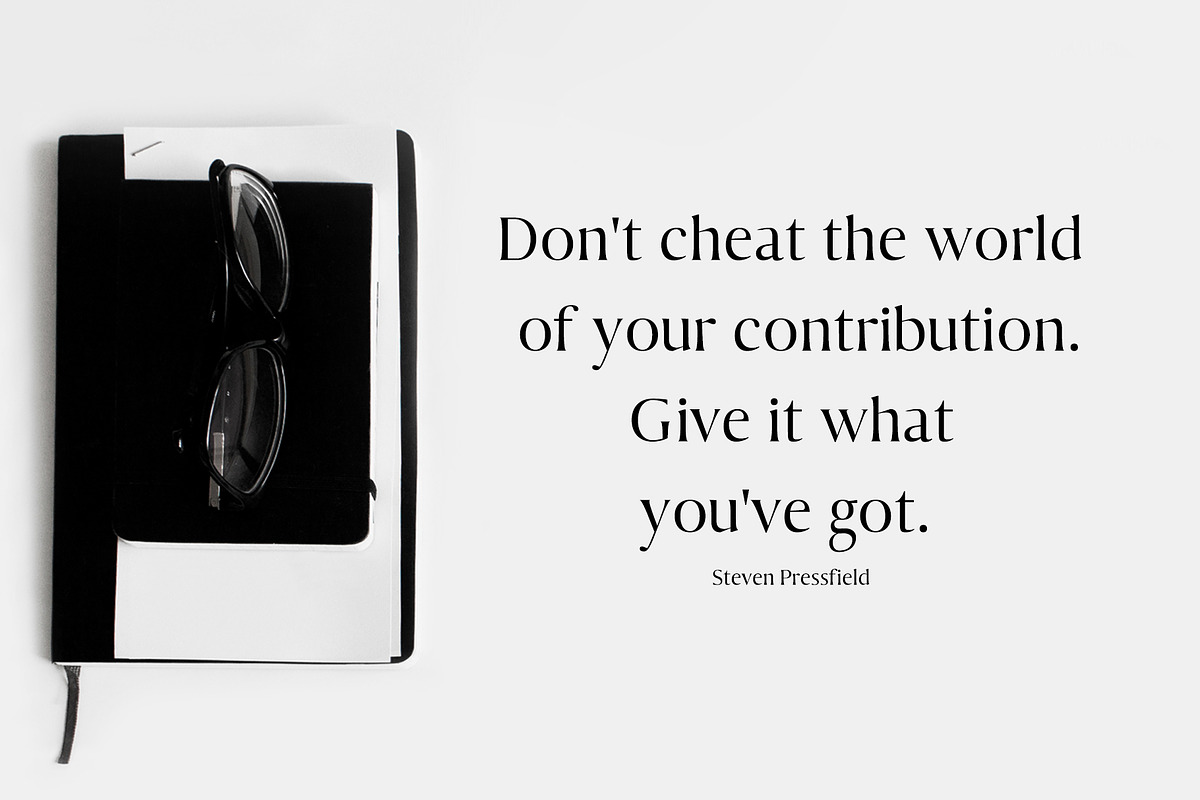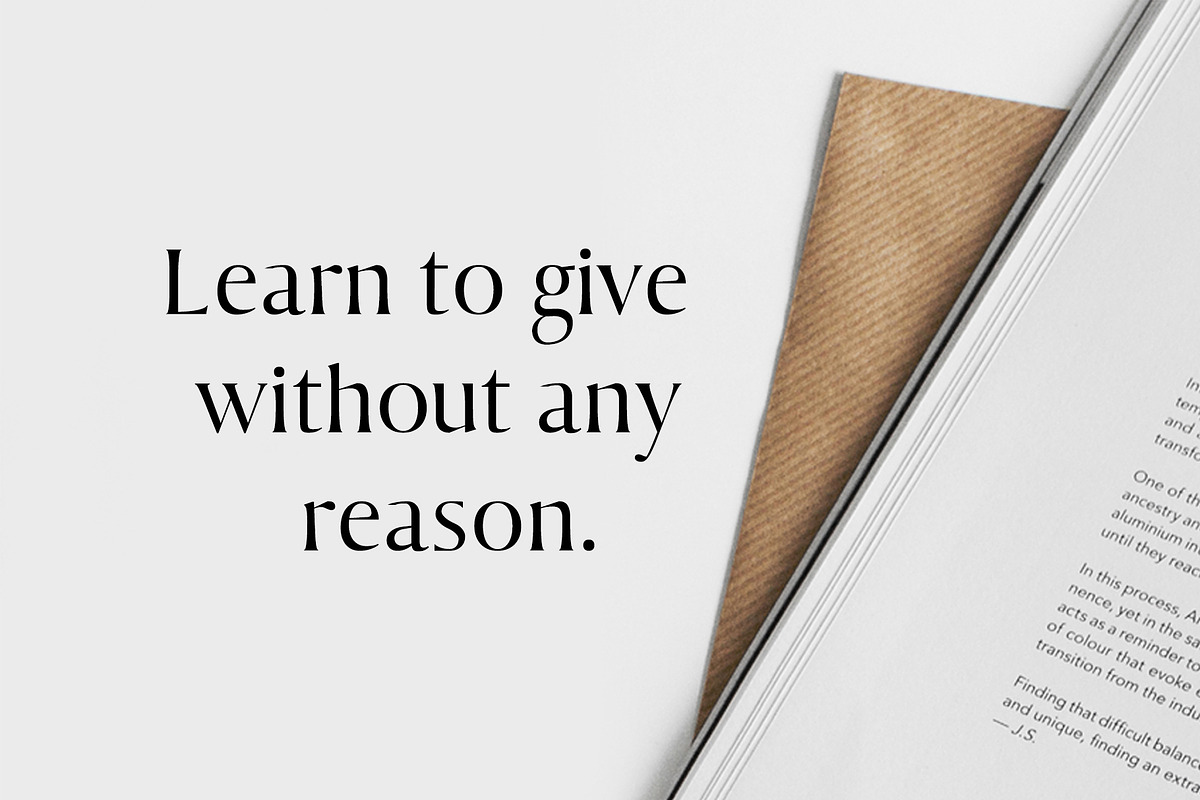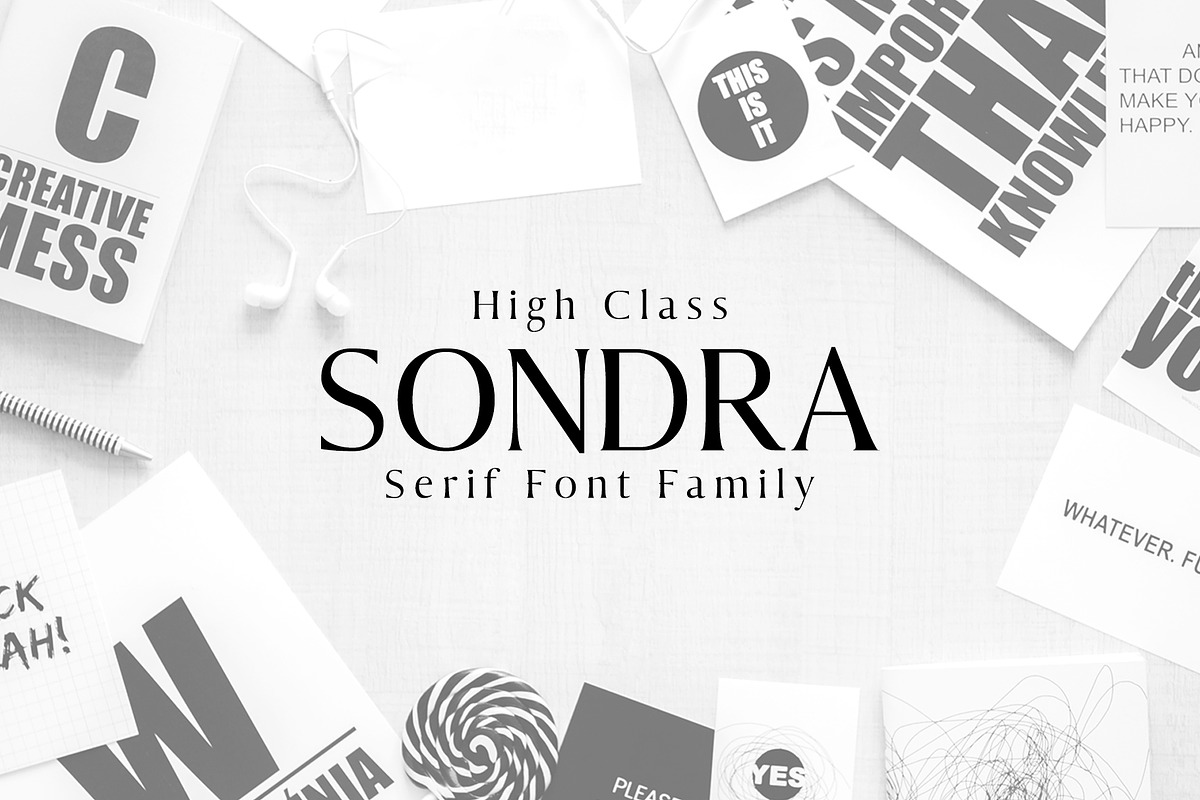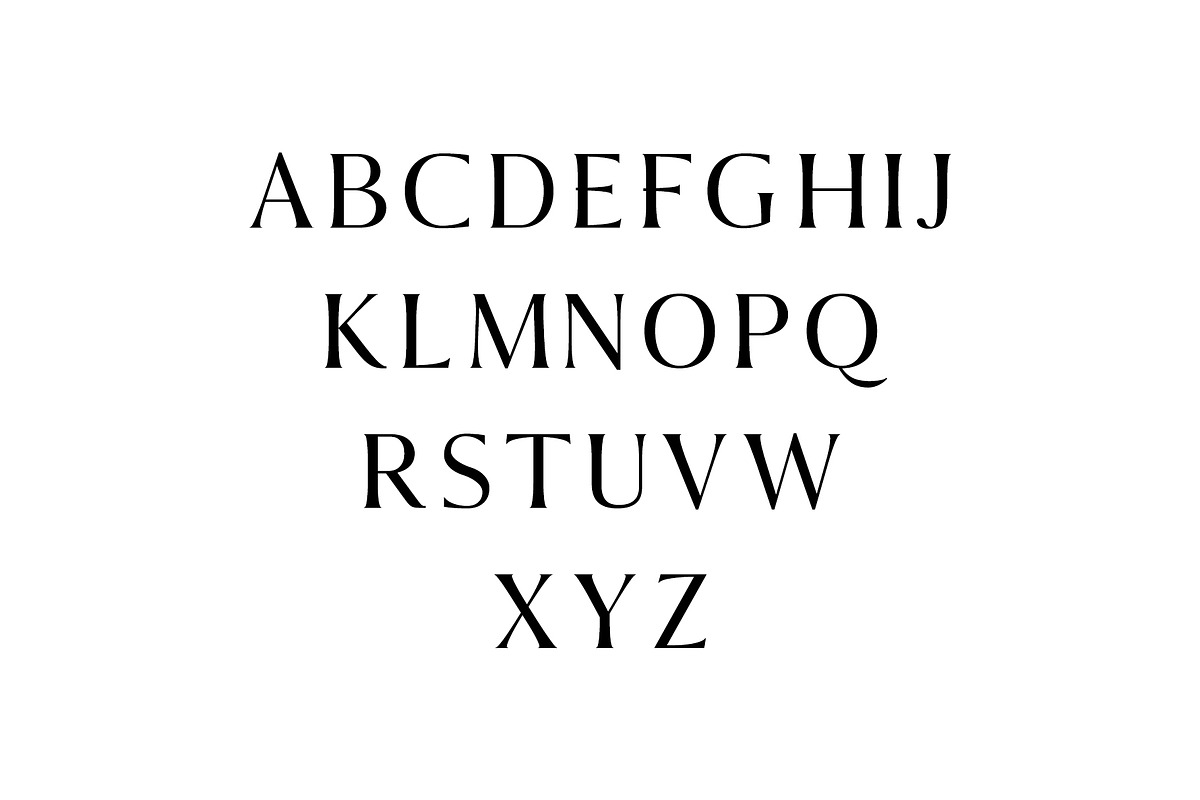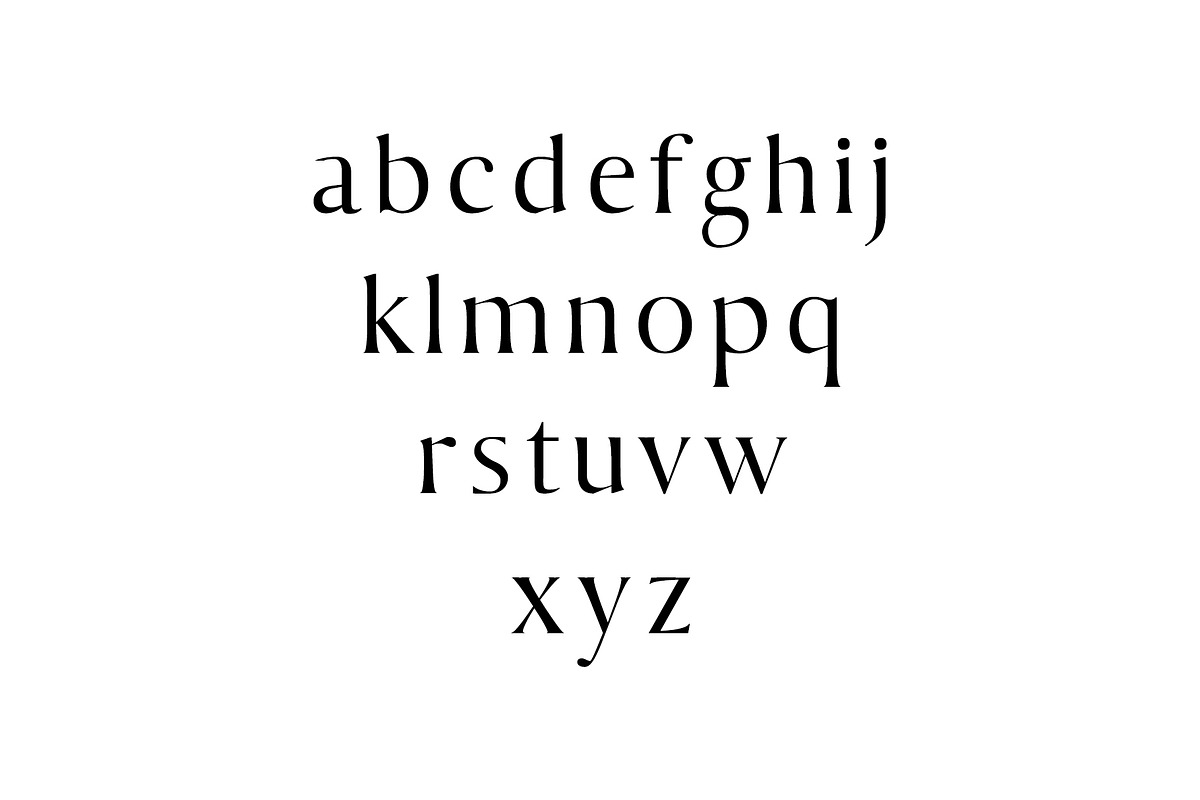
Sondra Serif 6 Fonts Family Pack
Sondra Serif 6 Fonts Family Pack by Creativetacos is a font selected for branding, posters, packaging, typography.
- Font Weight: Regular, Light, Thin, Outline and Bold
- Sondra Thin
- Sondra Light
- Sondra Regular
- Sondra Bold
- Sondra ExtraBold
- Sondra Outline
Sondra Serif 6 Fonts Family Pack by Creativetacos fits naturally into Branding, posters, packaging, typography.